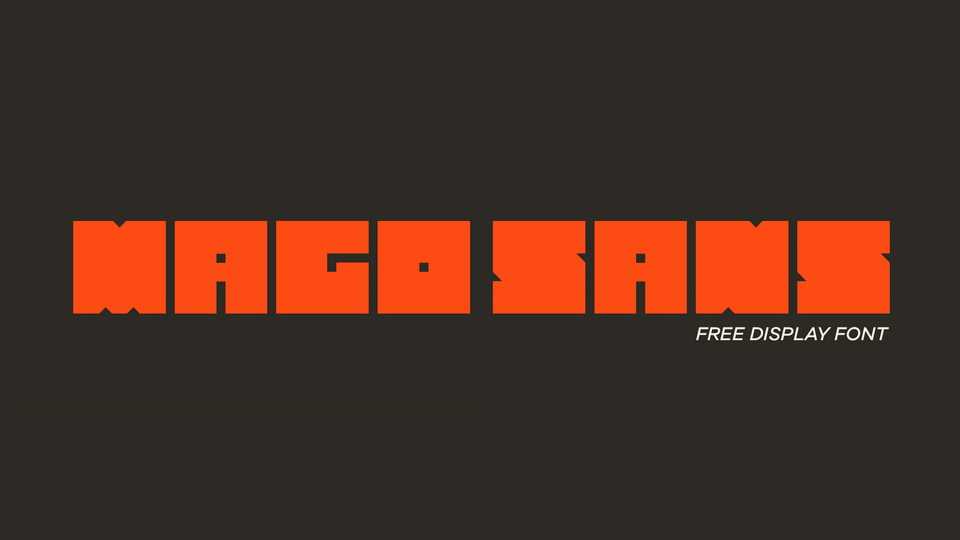
Download Mago Sans is a display typeface with a geometric angular look designed for high visual impact. Mago Sans is great for headlines, prints, branding, editorial and websites — everything that strives for being bold, vibrant and strong.
Designer: Magno Santos